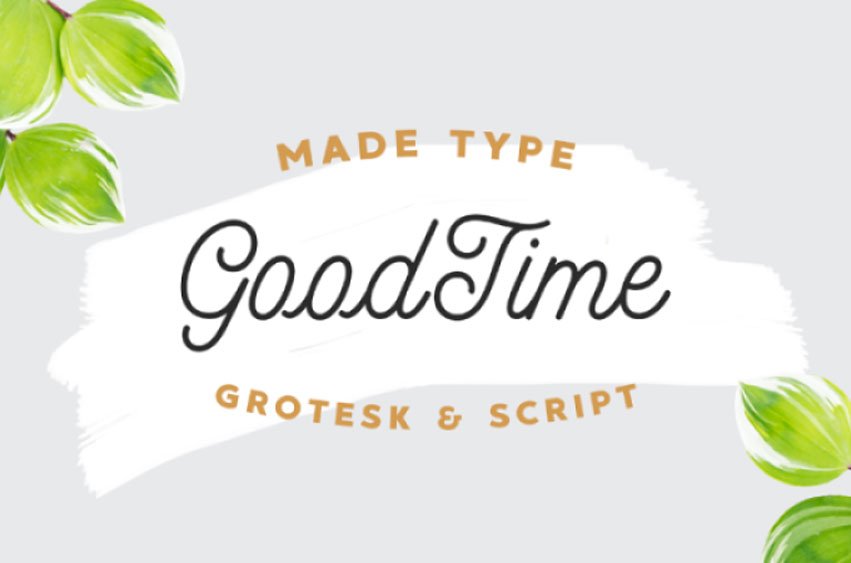
GoodTime Font is font type created and offered by MadeType. MADE GoodTime – is a monoline script and grotesk font that serves as a wonderful pair but can also be used individually. This tasty pair has 2 fonts, both are created specifically so you’ll never be left wanting for the suitable font. MADE GoodTime can be used for any kind of project that is to be print or digital.
MADE GoodTime is ideal for headlines and brief texts since this type of fonts has a very narrow letterform. It should be used in magazines and packaging, adverts and branding, posters, editorial, TV, movies, and the web.